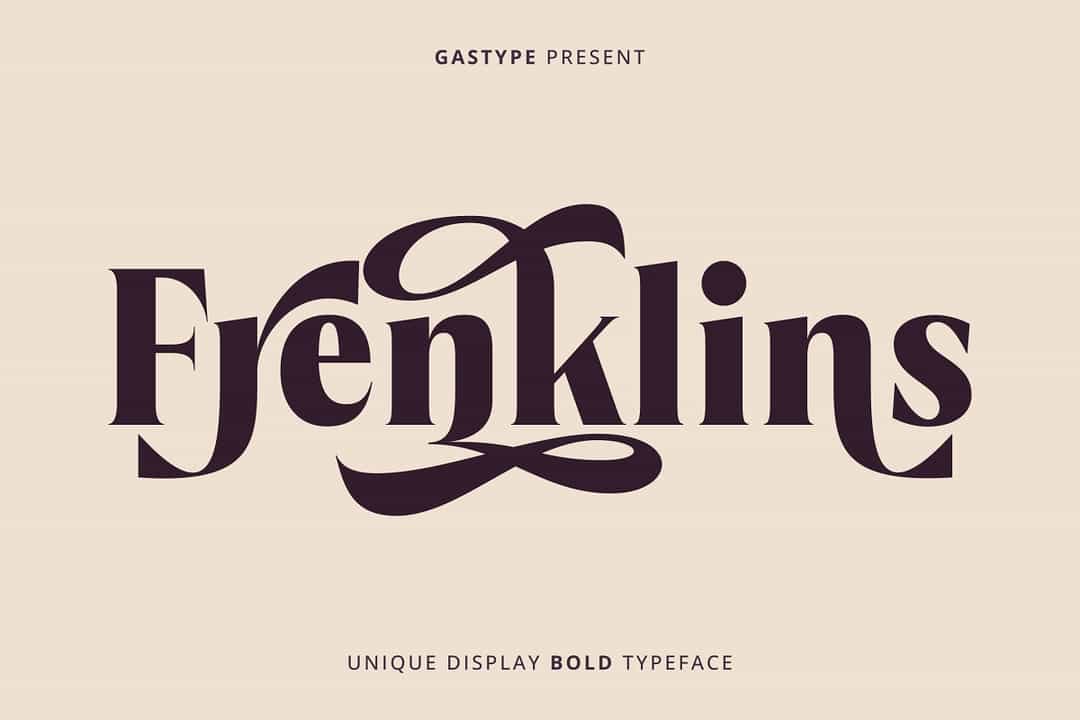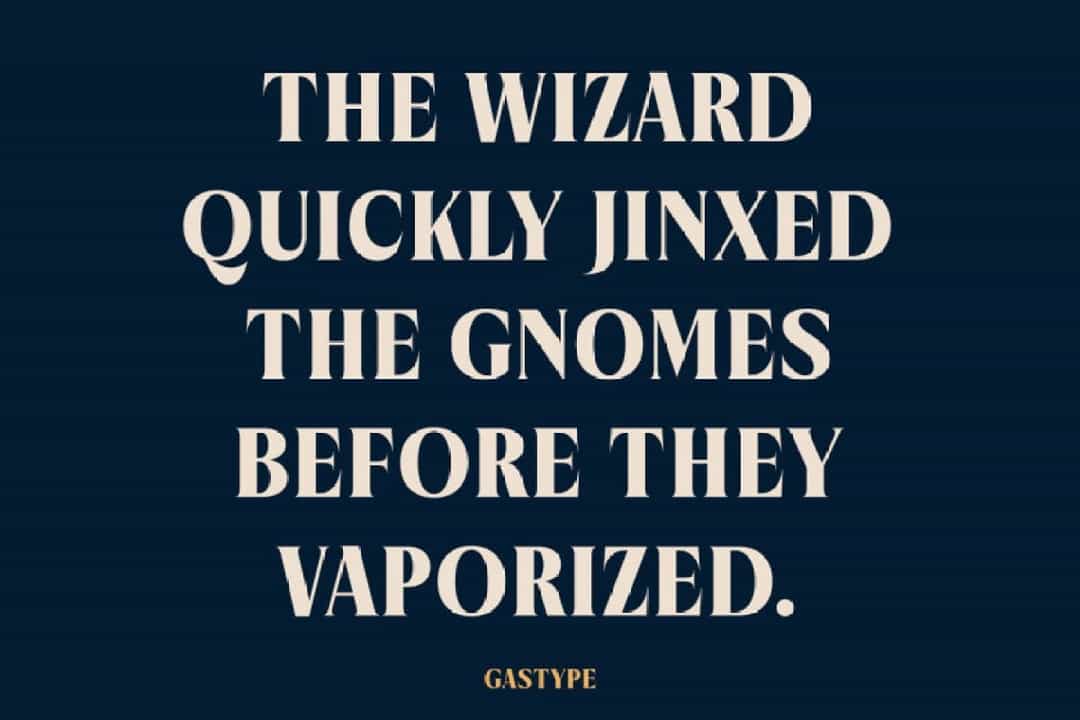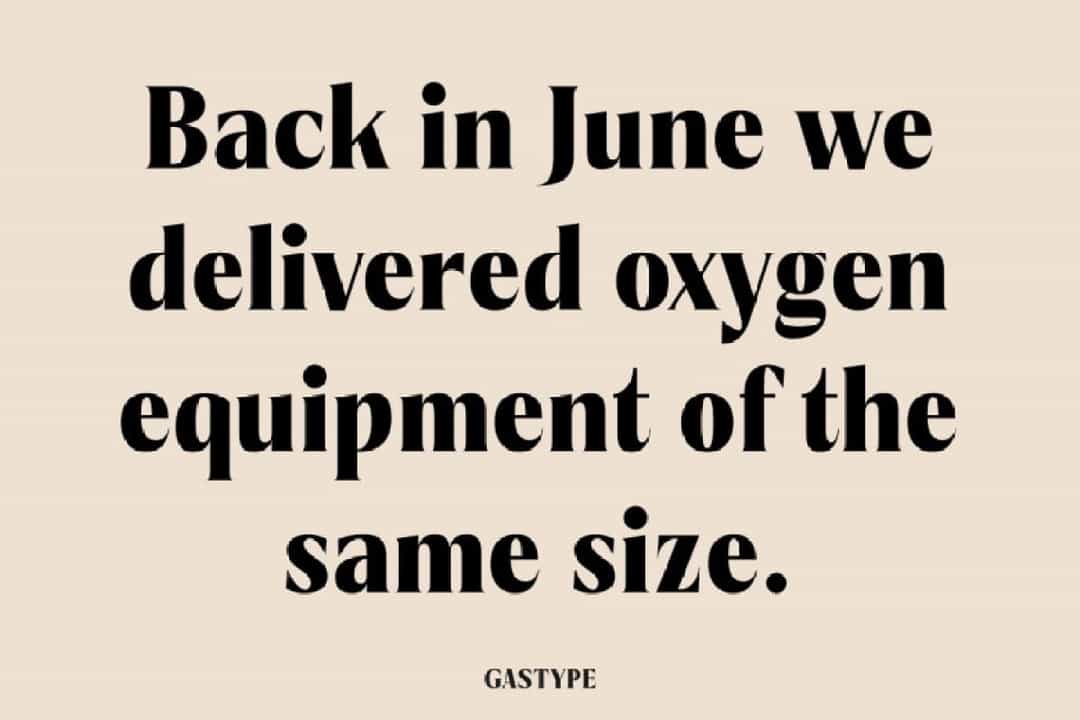
Discover Frenklins Font, part of the Serif Display collection—a versatile and unique font perfect for adding a personal touch to your projects. Download it for free and enjoy crafting designs with style, from invitations to social media posts. This font is available exclusively for personal use, giving you the freedom to create without limits. Unlock your creativity with Frenklins Font today!
Frenklins is an attractive vintage-inspired display font designed for trademarks, logos, headlines and more. You can incorporate Basic Latin Glyphs or one of many alternatives for distinctive designs to achieve optimal results. Support for 64 languages allows for international communication while still keeping its old-fashioned aesthetic.